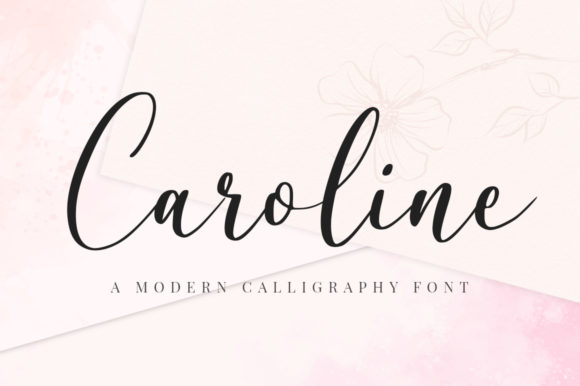
The Quest for the Perfect Font: Discovering Caroline
I still remember the design project that led me to fall in love with the Caroline font. I was working on a wedding invitation suite, and my client had a very specific vision: elegant, modern, and sophisticated. I spent hours scouring font websites, but nothing seemed quite right. That was until I stumbled upon Caroline. Its classy, elegant, and modern look instantly won me over, and I knew I had found the perfect fit for my project.
An Honest Review of Caroline
So, what makes Caroline so special? Let’s dive into the good stuff and a few quirks I’ve discovered.
- ✨ Elegant and modern design: Caroline has a unique blend of classic and contemporary elements that make it perfect for a wide range of design projects.
- ✅ Highly versatile: From logos and branding to invitations, stationery, and social media posts, Caroline can adapt to any design need.
- 💫 Beautiful swashes and ligatures: The font comes with a range of OpenType features, including swashes and ligatures, that can add an extra touch of sophistication to your designs.
While Caroline is an amazing font, there are a few things to keep in mind:
- ⚠️ Legibility at small sizes: Like many script fonts, Caroline can be a bit tricky to read at very small sizes. It’s best used at larger sizes or for headlines.
- 🤔 Pairing with other fonts: Caroline is a strong personality font, so it can be a bit challenging to pair with other fonts. Experiment with different combinations to find the perfect match.
The Story Behind Caroline
Caroline was designed with the intention of creating a beautiful, elegant script font that could be used across a wide range of design projects. The designer aimed to craft a font that exudes class and sophistication while still feeling modern and fresh. The result is a versatile font that can add a touch of luxury to any design.
Q: Is Caroline suitable for body text?
A: While Caroline is a beautiful font, it’s best used for headlines or short text passages. Its elegant design and script style can be a bit challenging to read for longer body text.
Q: Does Caroline support multiple languages?
A: Caroline supports the basic Latin character set. If you need to use it for a language that requires additional characters, check the font’s specifications or contact the designer.